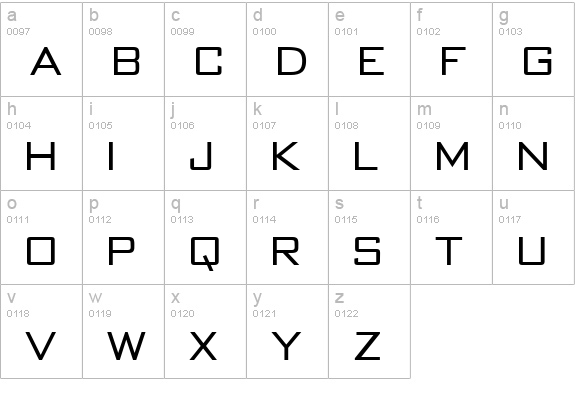
B652-Sans-Regular Font Details
B652-Sans-Regular is the standard, neutral variant in the B652 typeface family \xE2\x80\x94 well suited to general body text, paragraphs, and standard typographic work.
The B652-Sans-Regular font is a versatile and modern typeface that exudes simplicity and elegance. With its clean lines and balanced proportions, this font is perfect for a wide range of design projects, from branding to editorial layouts. Its neutral appearance makes it suitable for both headlines and body text, ensuring readability and visual appeal. What sets the B652-Sans-Regular font apart is that it is available for free download at FontsMarket.com. This means that designers and creatives can easily access this high-quality font without any cost, making it a valuable addition to their font library. Whether you are working on a personal project or a client's design, the B652-Sans-Regular font offers a sophisticated and contemporary aesthetic that will elevate your work to the next level.